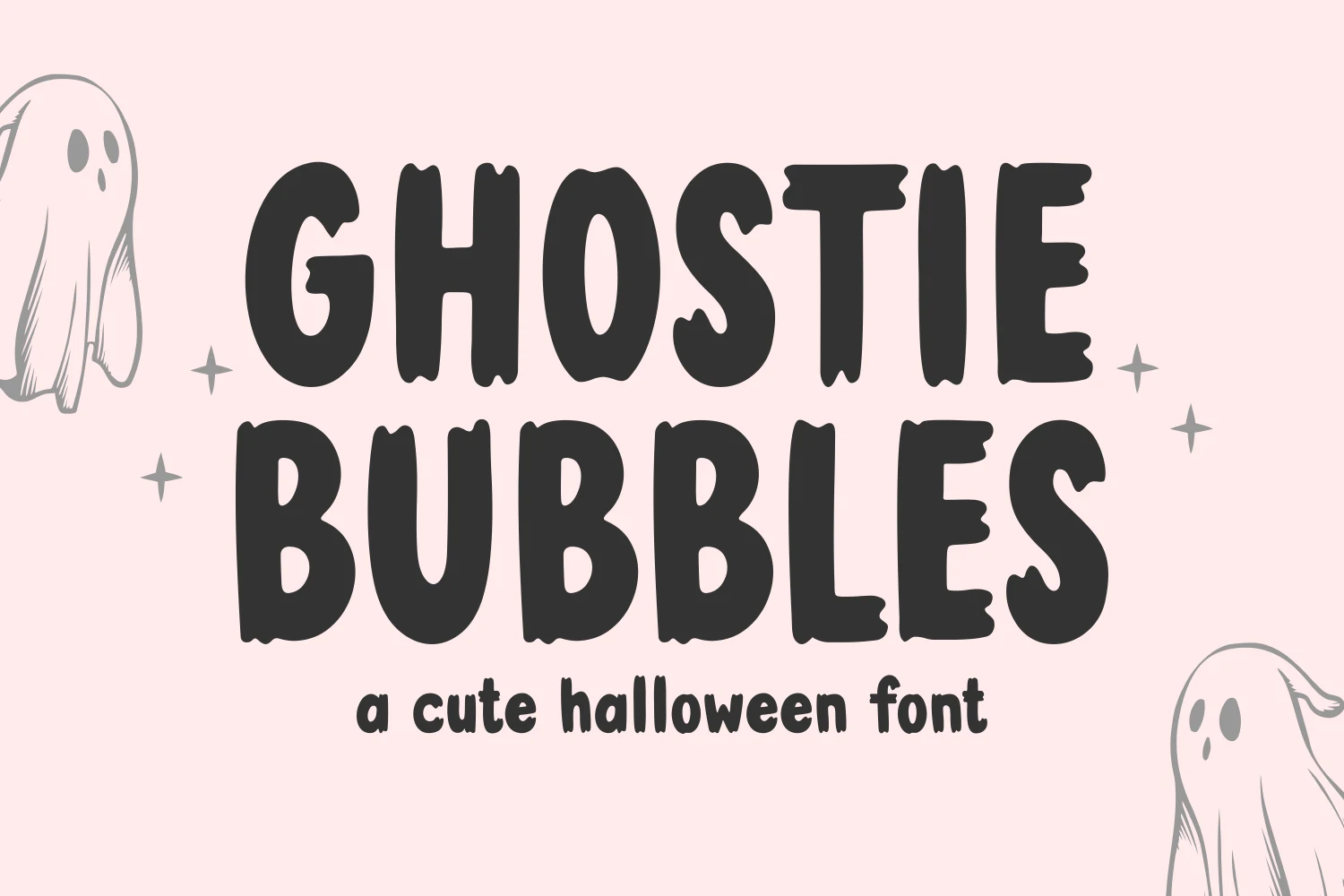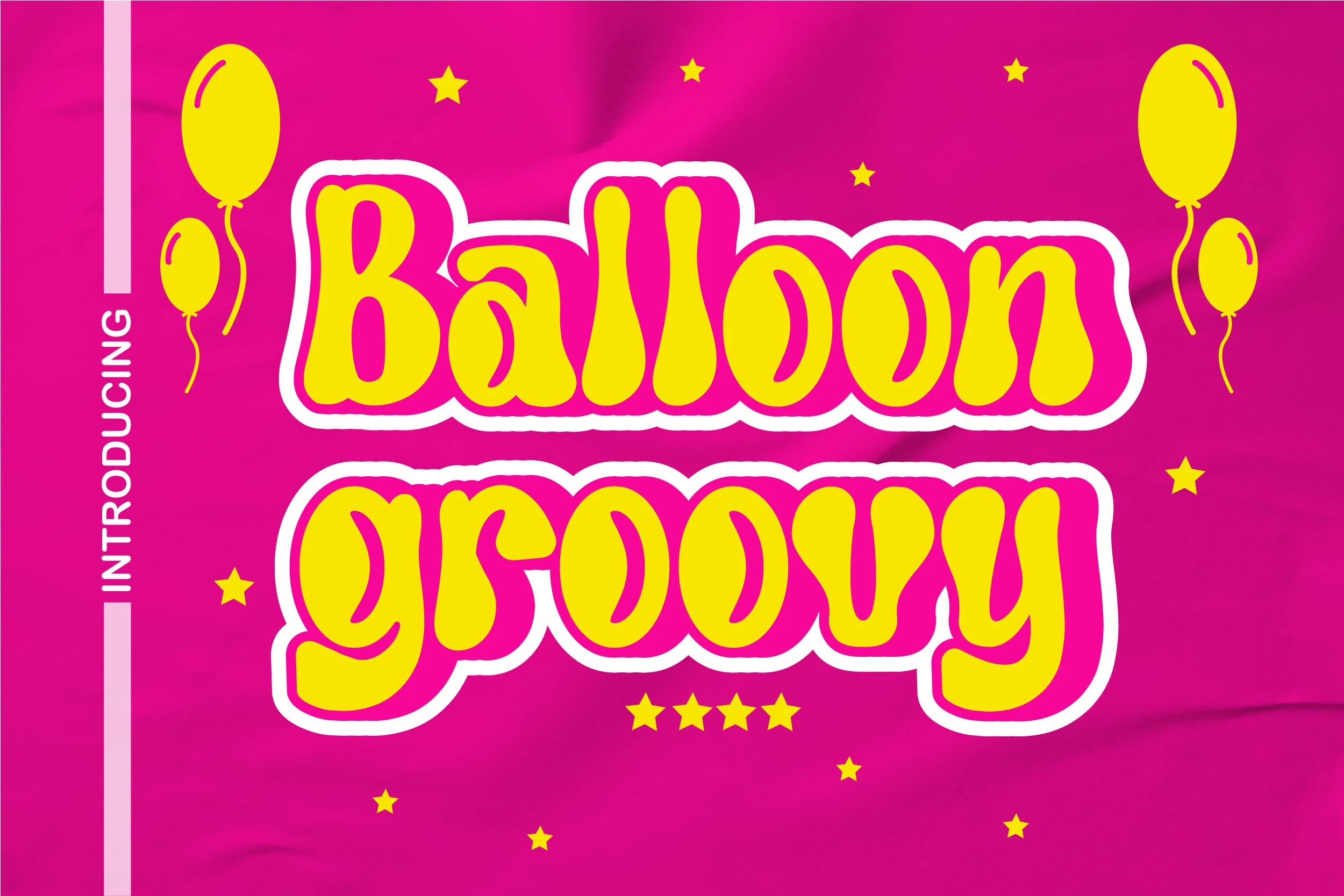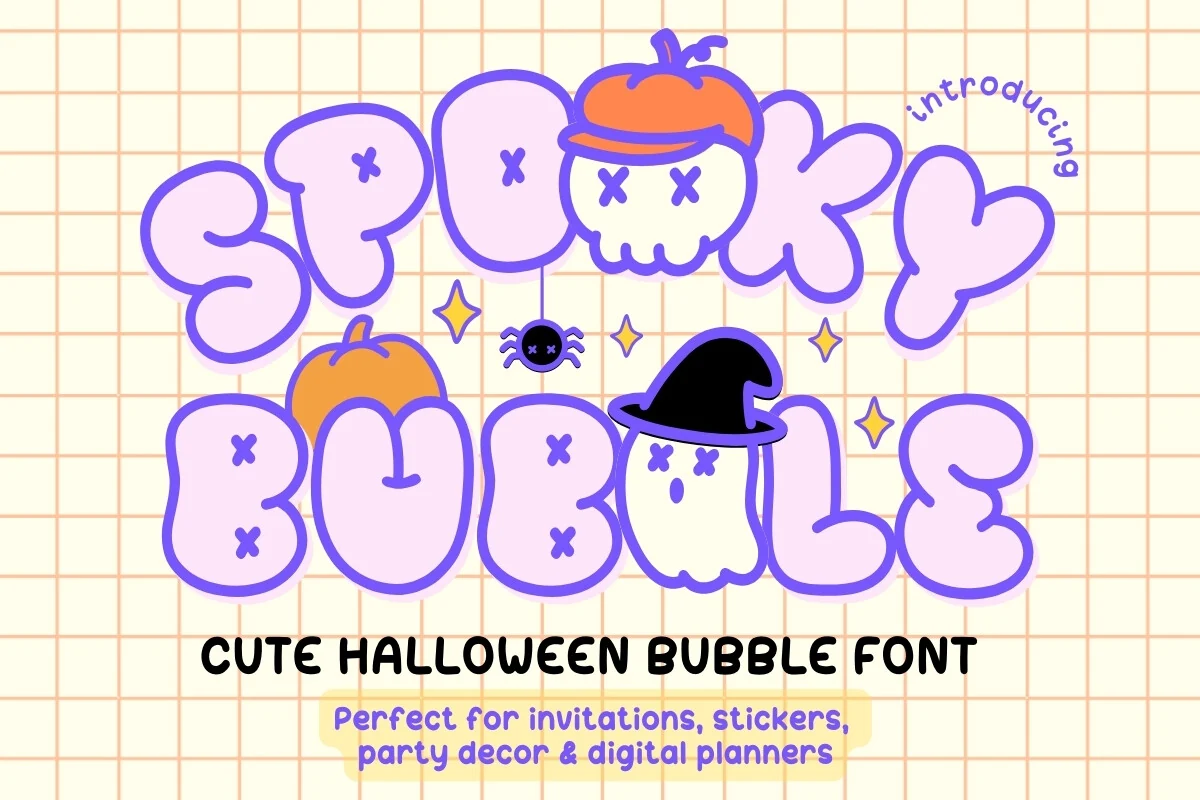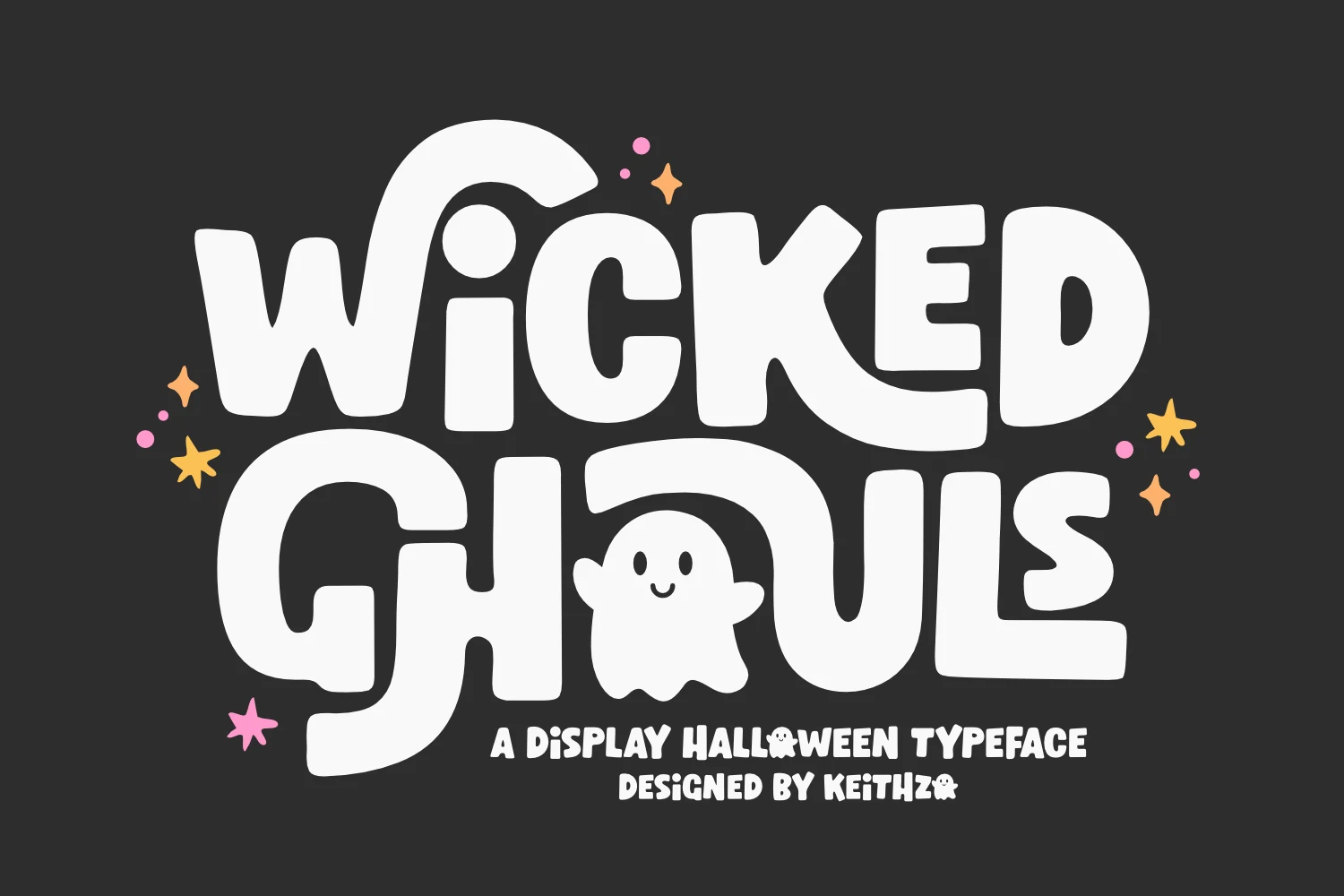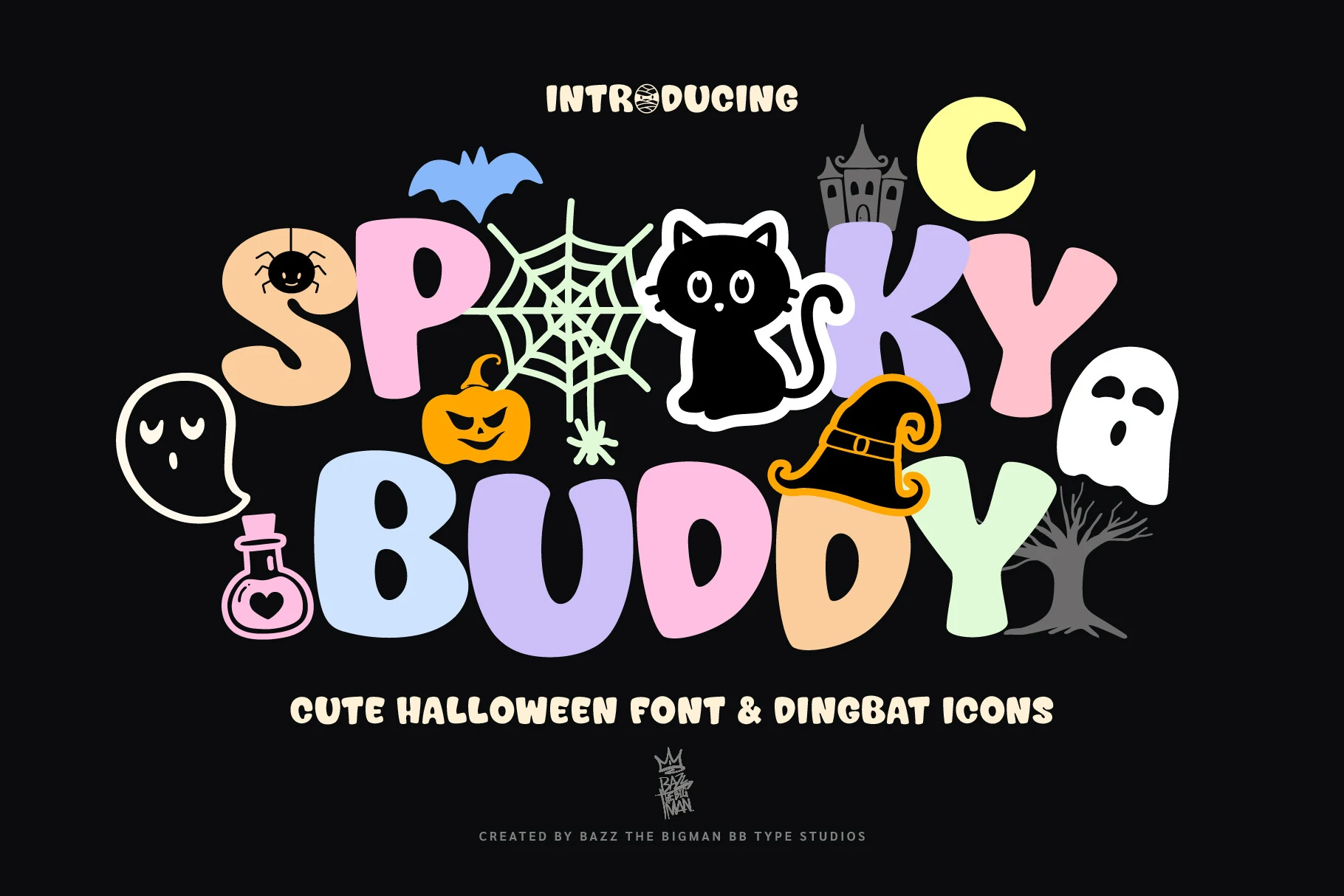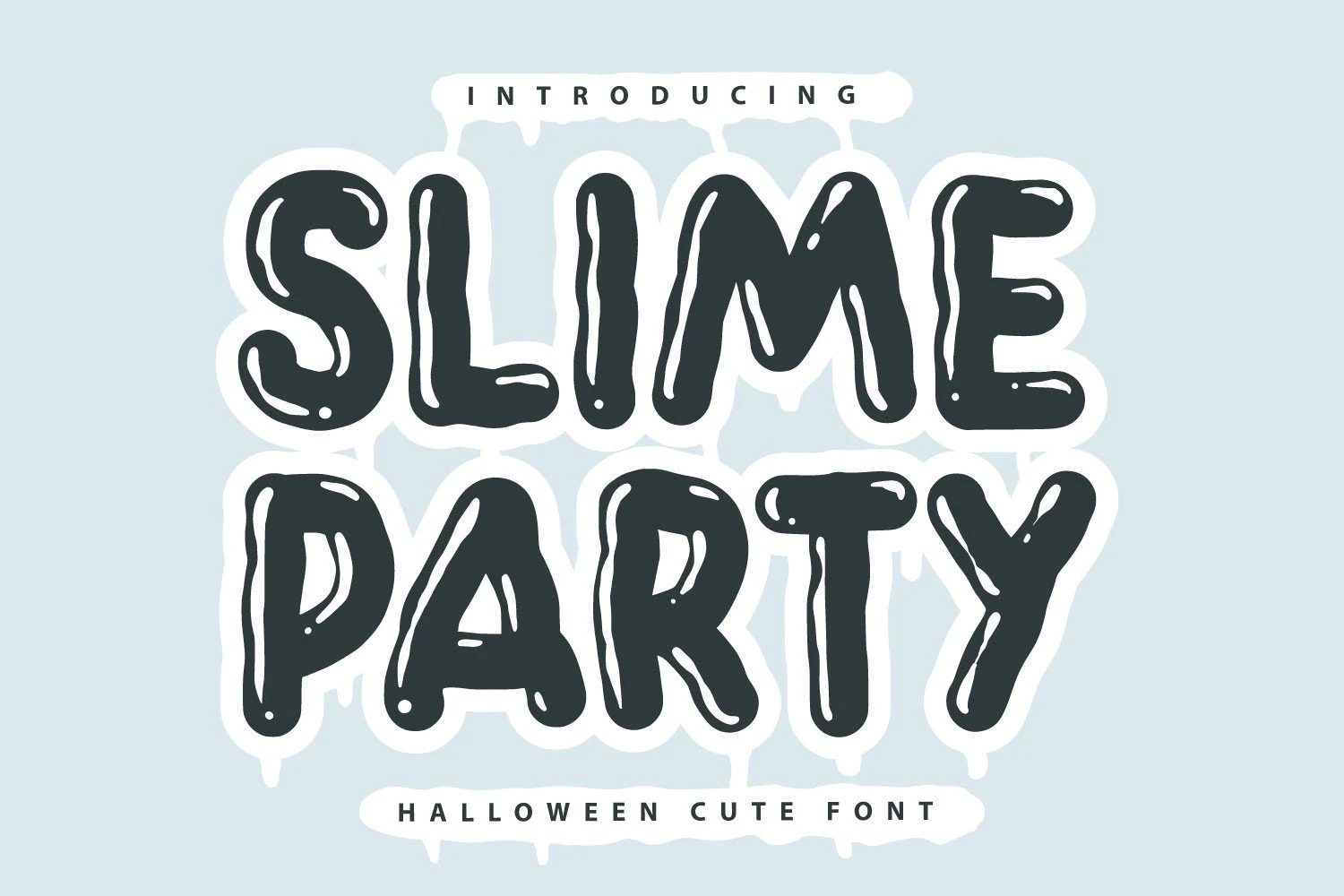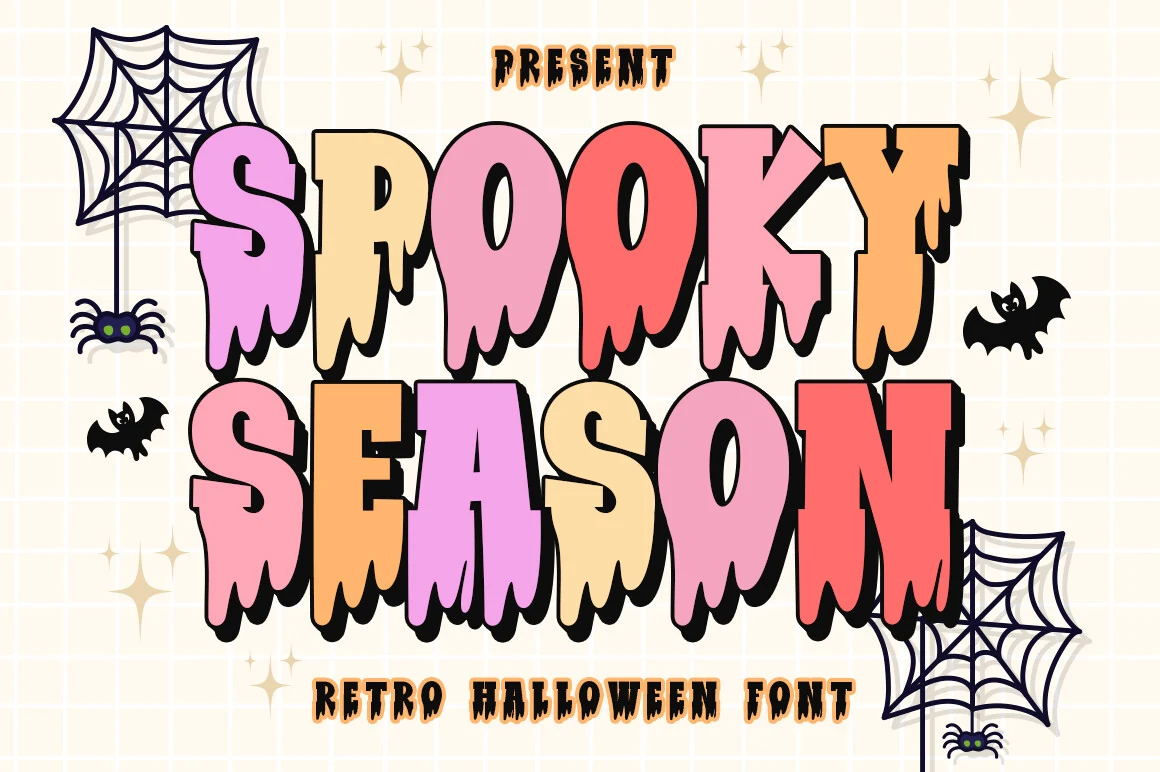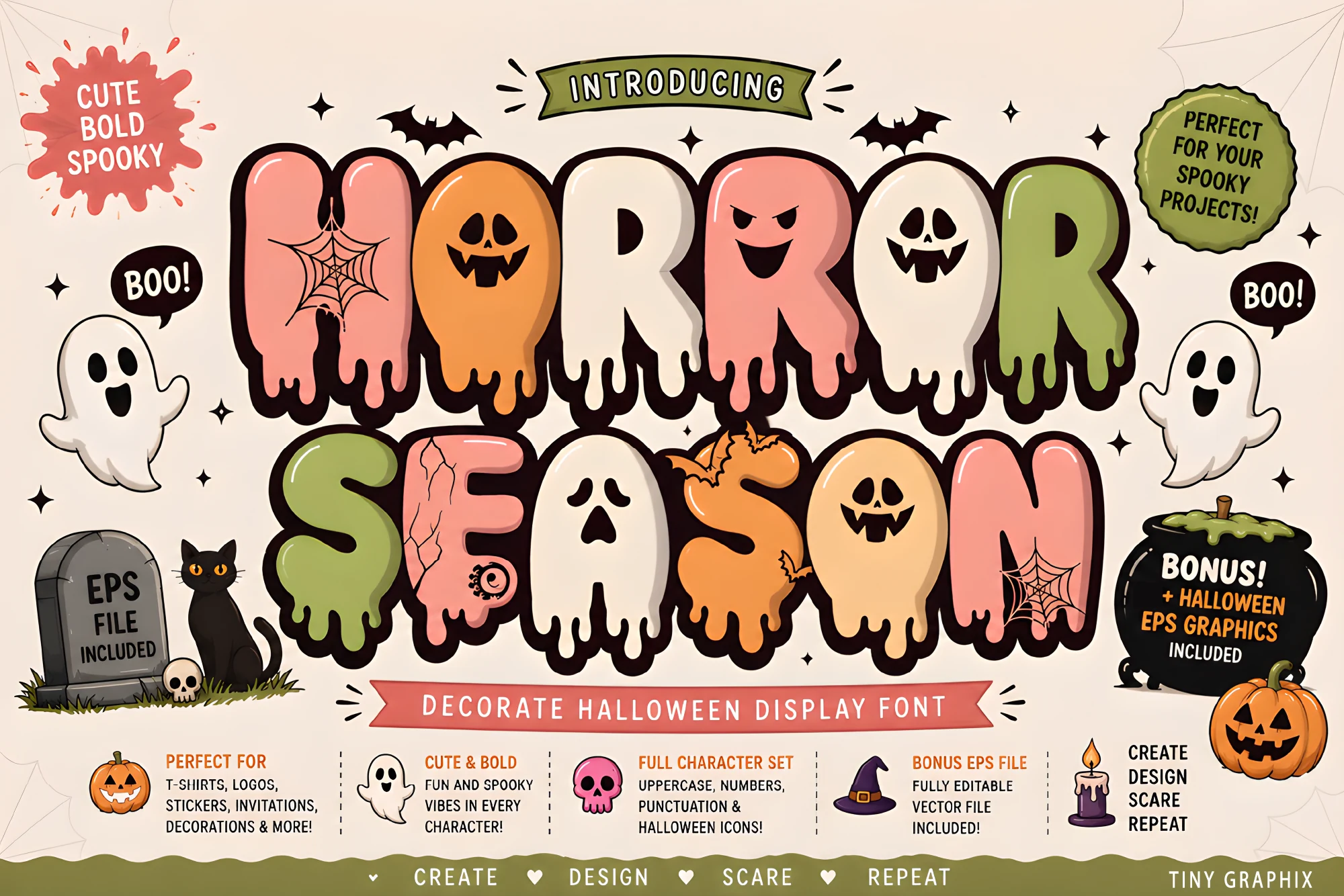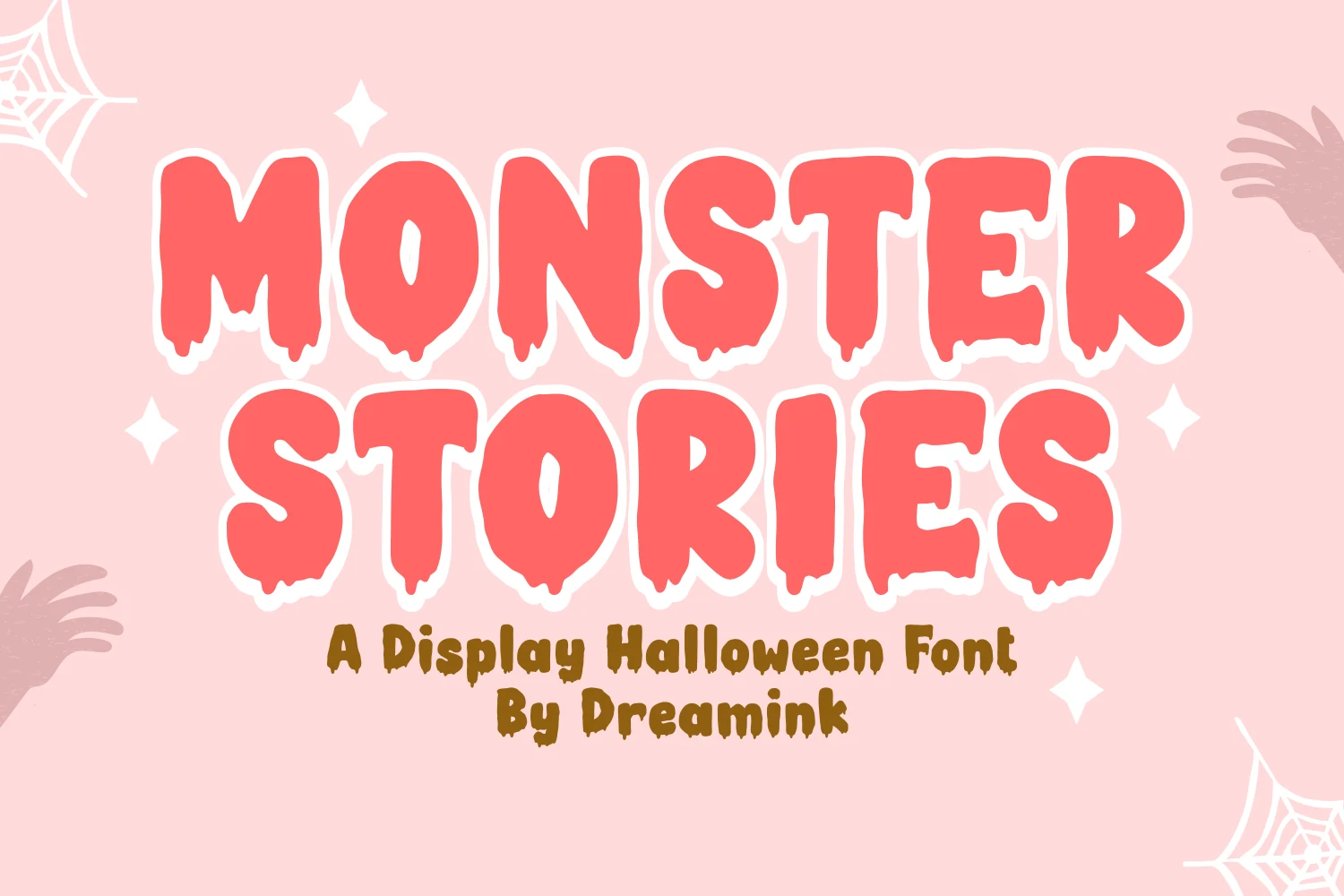
22 Best Cute Halloween Fonts for Invitations in 2026
Cute Halloween Fonts range from rounded bubble letters and gooey drips to stitched motifs, illustrated details, condensed forms, and headline duos. This collection focuses on how those visible constructions affect readability and helps match each style with posters, stickers, apparel, invitations, and other display-led projects.
Cute Halloween Fonts: Rounded Bubbles
Cute Halloween Fonts in this group use wide, rounded bubble shapes, soft terminals, and mostly even strokes. They feel gentler than the dripping or illustrated categories, with clearer silhouettes for large titles.
Ghostie Bubbles Font by Dreamink 7ntypes Font
Ghostie Bubbles Font by Dreamink 7ntypes Font uses heavy, upright monoline bubbles with deliberately bumpy edges and disconnected characters. The irregular contours add handmade energy to posters, display text, and stickers, although they can soften clarity when reduced to very small sizes.
Balloon Groovy Font
Balloon Groovy Font is a condensed, heavy display style whose rounded blob letters fit bold wording into narrower spaces than many bubble designs. Uniform strokes and internal outlines support large-size reading, making it useful for posters, display text, and compact social media graphics.
Spooky Bubble Font
Spooky Bubble Font combines wide, stable bubble letters with integrated x-shaped stitch details. The broad forms hold up well in posters, social media graphics, and stickers, though the small stitch marks can become visual clutter or disappear when the lettering is reduced.
Wicked Ghouls Font
Wicked Ghouls Font pairs soft, wide blob forms with swooshes and ghost-accented letters. Its thick rounded construction stays readable in large display text, posters, and stickers, but tight spacing and rounded terminals make it a poor choice for body copy.
Spooky Buddy Font
Spooky Buddy Font combines wide rounded capitals with a mapped set of Halloween dingbat icons. The thick letterforms stay clearest in large titles, while the icon system expands T-shirt, sticker, and poster layouts without requiring separate clip art.
Dripping and Melting Letterforms
These fonts keep their letter bodies heavy and rounded but distort the lower edges into drips, melting terminals, or gooey silhouettes. Their liquid effects create stronger movement than the stable bubble group.
Slime Party Font
Slime Party Font builds thick, bulbous cartoon letters with rounded terminals and a distinct liquid-drip edge along the bottom. Its casual gloop-like construction suits large posters, stickers, and T-shirts; the melting details need display scale to remain clean.
Spooky Season Font
Spooky Season Font turns chunky block letters into a retro display treatment by adding distressed, melting drips along the bottoms. Short headlines read quickly at poster scale, but the irregular lower edges lose precision in small labels, making stickers and headlines better fits.
Horror Season Font
Horror Season Font combines rounded bubble letters with dripping bottoms, facial features, and cobwebs built directly into the forms. These illustrations can carry a poster or T-shirt design without extra ornaments, but they limit both reading length and useful size.
Monster Stories Font by Dreamink 7ntypes Font
Monster Stories Font by Dreamink 7ntypes Font: Monster Stories Font relies on rounded heavy letterforms and gooey, irregular terminals as its main identity. The strong silhouette works for invitations, posters, and stickers, while the dripping edges noticeably reduce legibility when the wording becomes small.
Halloween Font
Halloween Font pushes rounded monoline letters into a dripping display style with liquid-like terminals and bulbous shapes. The fluid edges suit posters, stickers, and children’s designs where the effect is part of the joke, but they weaken small-scale reading.
October Spooky Font
October Spooky Font uses amorphous melting silhouettes and uneven stroke widths to suggest soft, dissolving forms. Its liquid shape suits short headlines, posters, and creature-themed graphics, but extended wording becomes harder to parse as the irregular contours accumulate.
Illustrated Spooky Lettering
Illustrated styles build Halloween imagery directly into the letters through stitches, webs, skulls, shadows, or abstract forms. They carry more visual information than plain displays, so short, large wording works best.
Mystic Icons Font
Mystic Icons Font places stitched, skeletal, melting, and spiderweb treatments inside individual letters. Those built-in motifs can supply much of the Halloween imagery in posters and invitations, but the irregular, heavily themed letters are unsuitable for body text or extended copy.